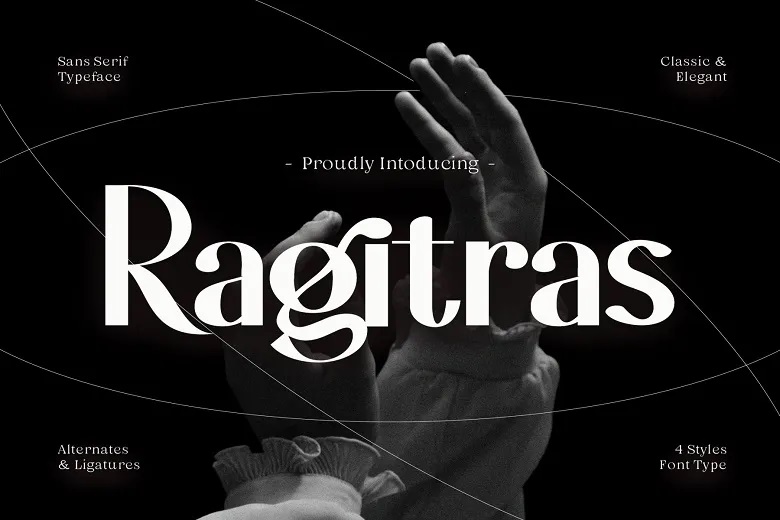
Ragitras Font
Ragitras is an elegant display sans serif typeface that surely will make you intrigued. Ragitras comes in four different weights; regular, italic, bold, and bold italic meaning you can always find that perfect balance of style and function for your design needs.
Ragitras breaks the normal mold with its interesting character shapes. Every single letter has a hint of character and freedom in it making them perfect for your headlines, logo designs and brand elements.